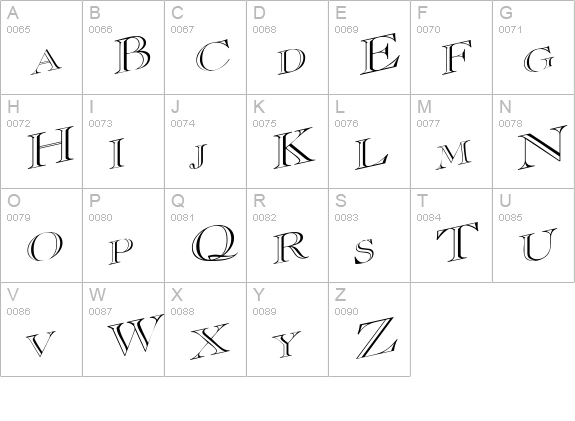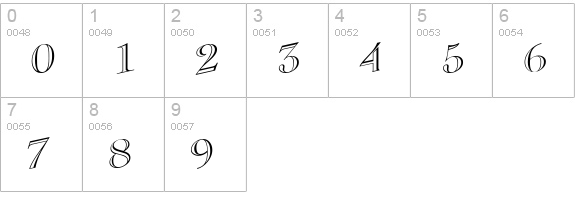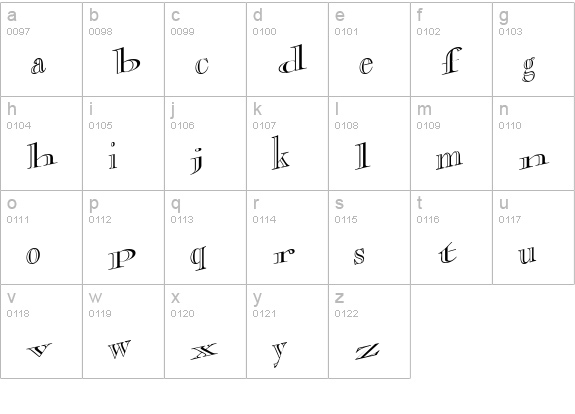
CasqueOpenFaceWacky Font Details
CasqueOpenFaceWacky font is a whimsical and playful typeface that brings a touch of fun and creativity to any project. Its open face design and quirky details make it perfect for adding a unique and eye-catching element to your designs. This font is free to download at FontsMarket.com, making it easily accessible for all your creative needs. Whether you're working on a poster, logo, or any other design project, CasqueOpenFaceWacky font is sure to add a touch of personality and charm. Let your imagination run wild with this free and lively font choice!